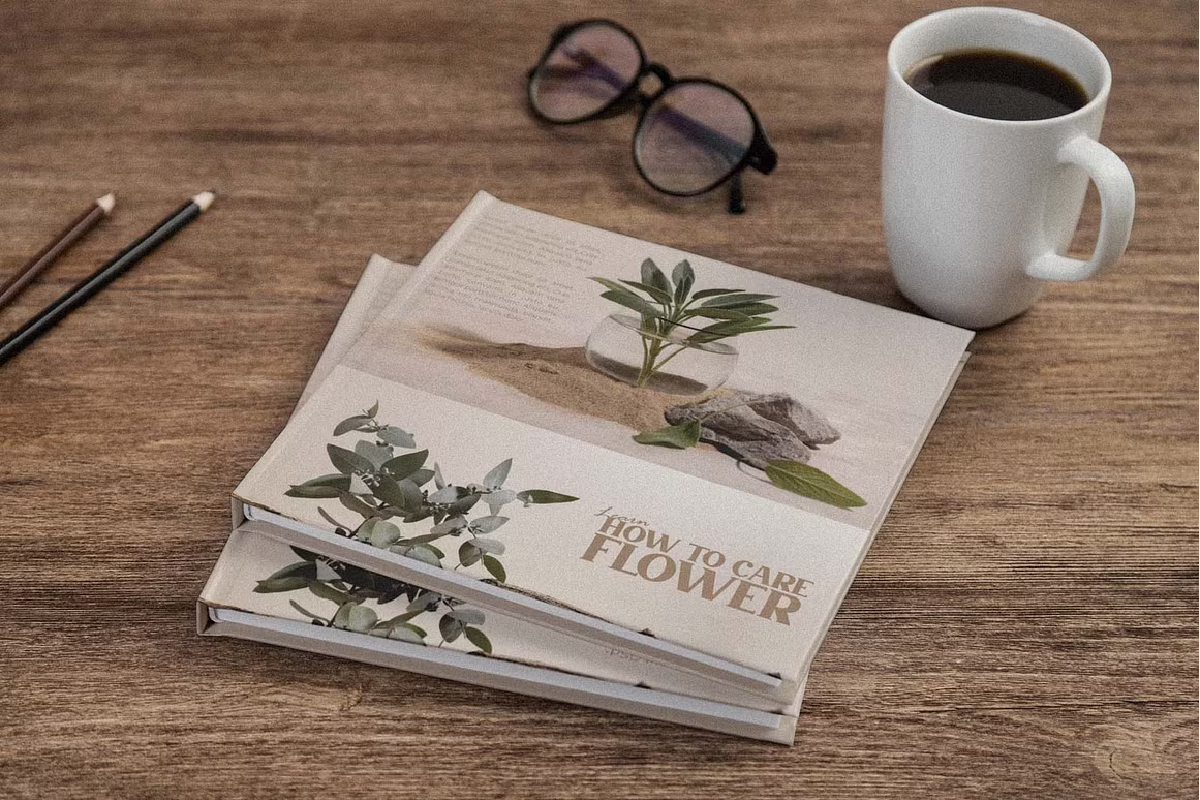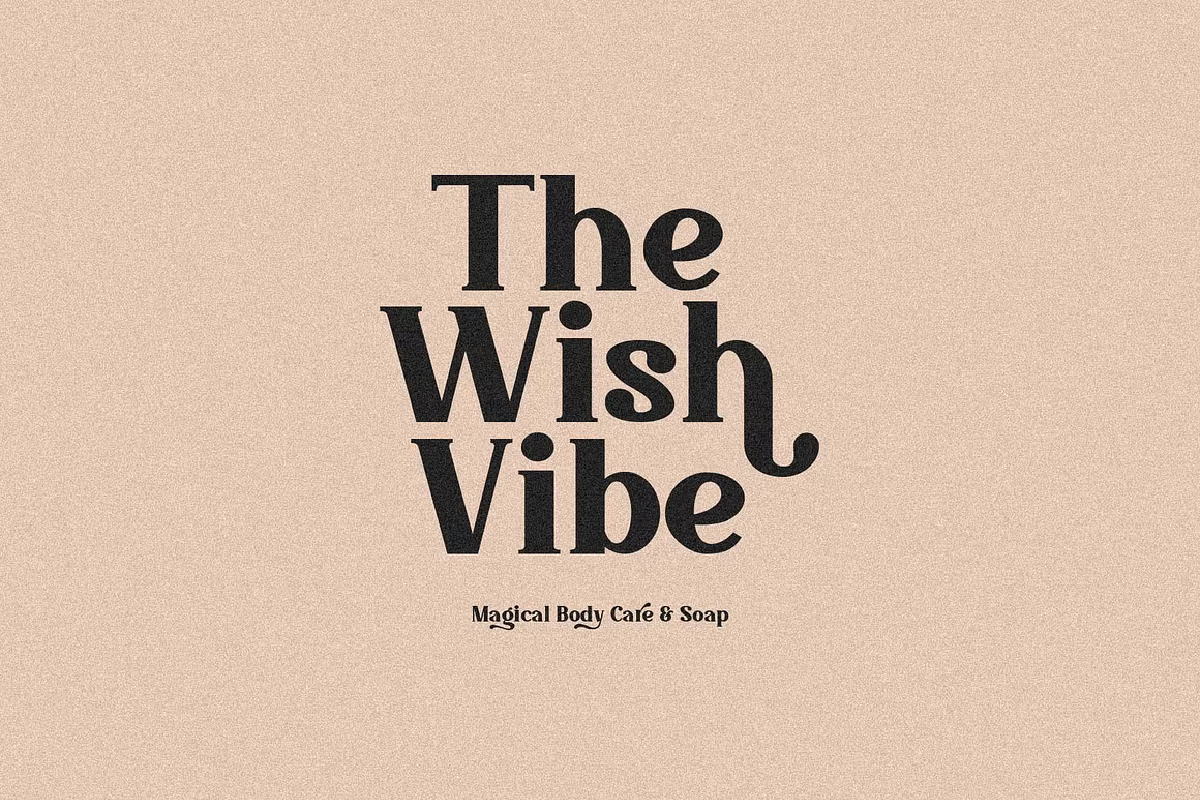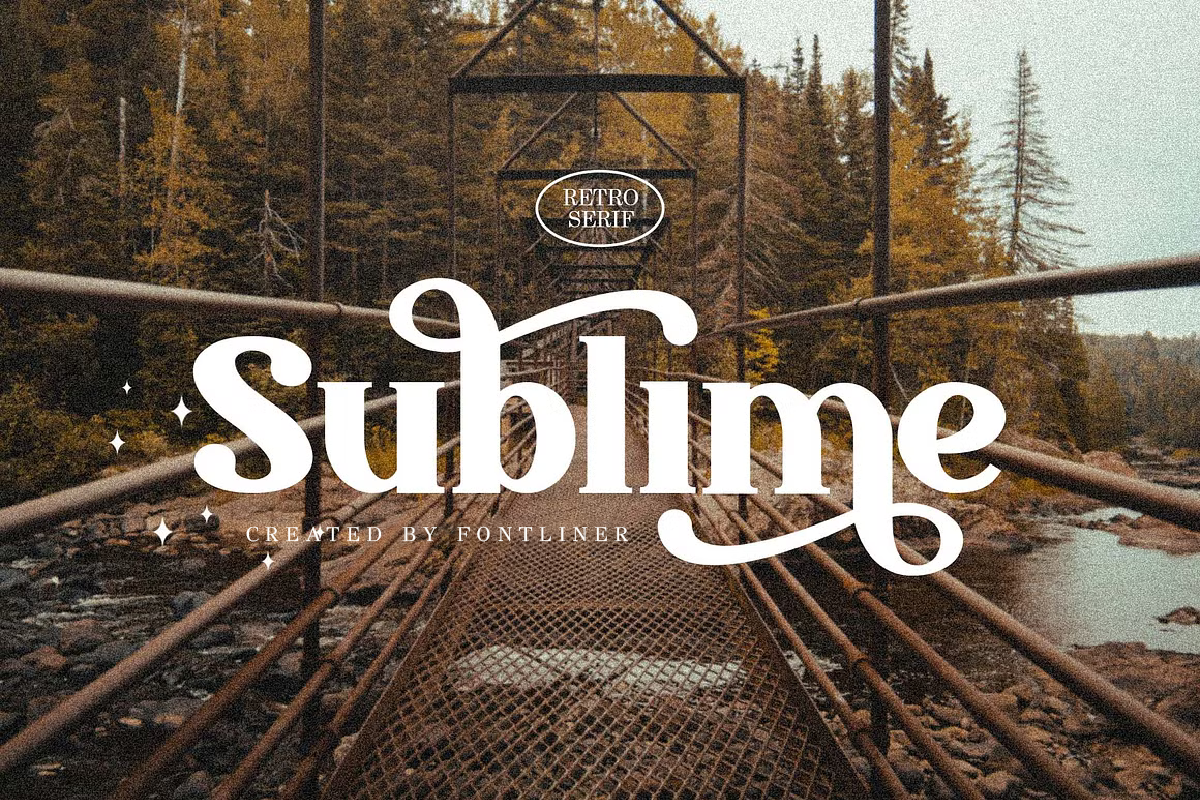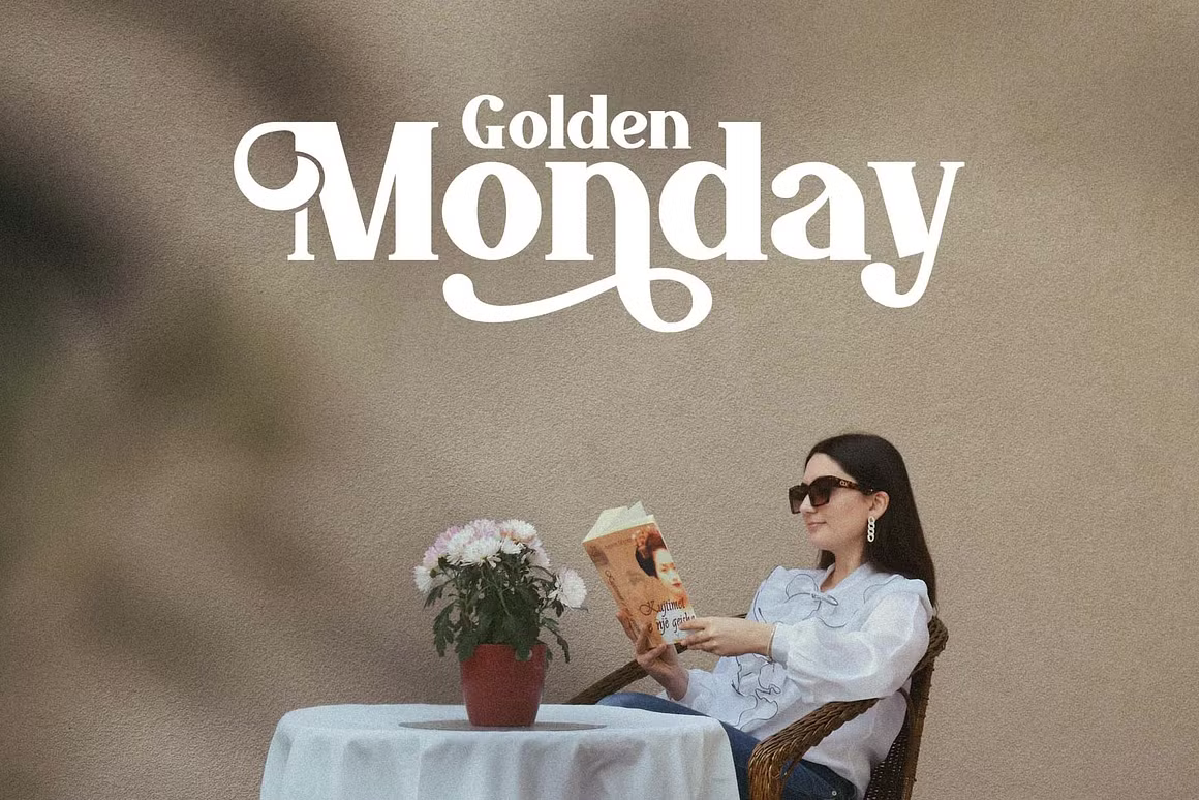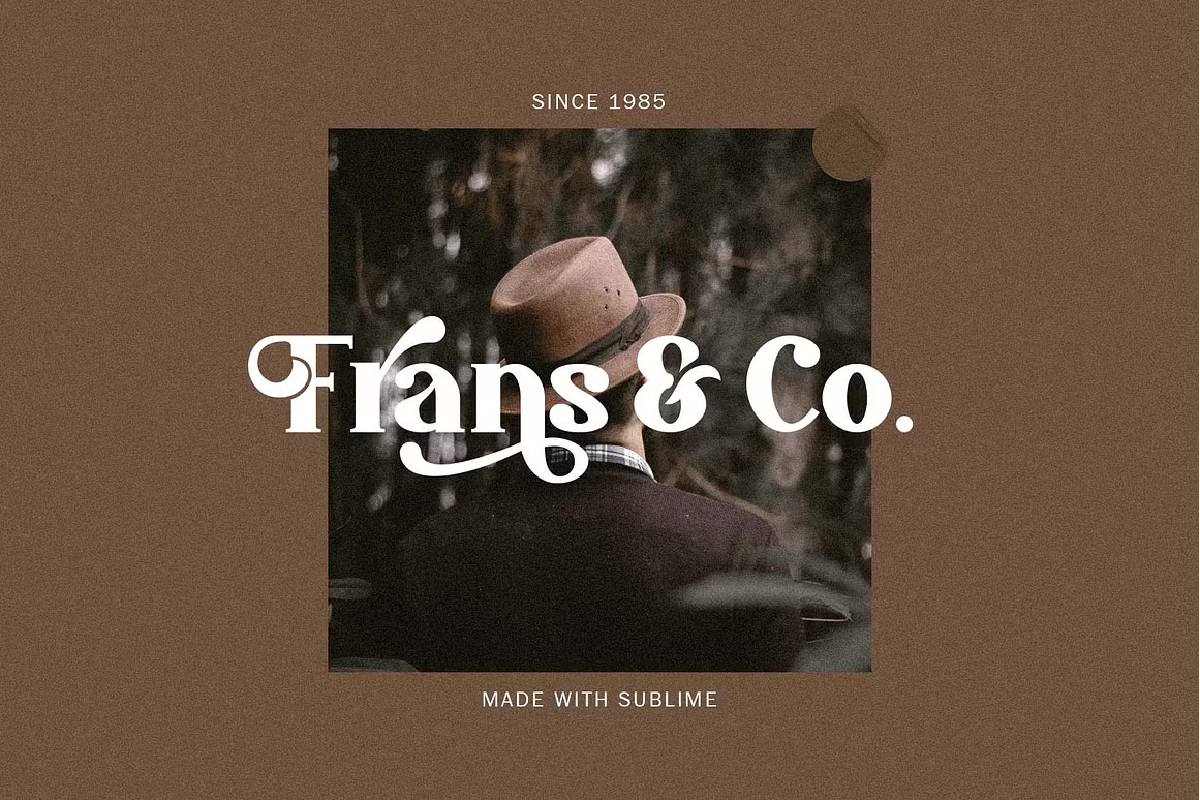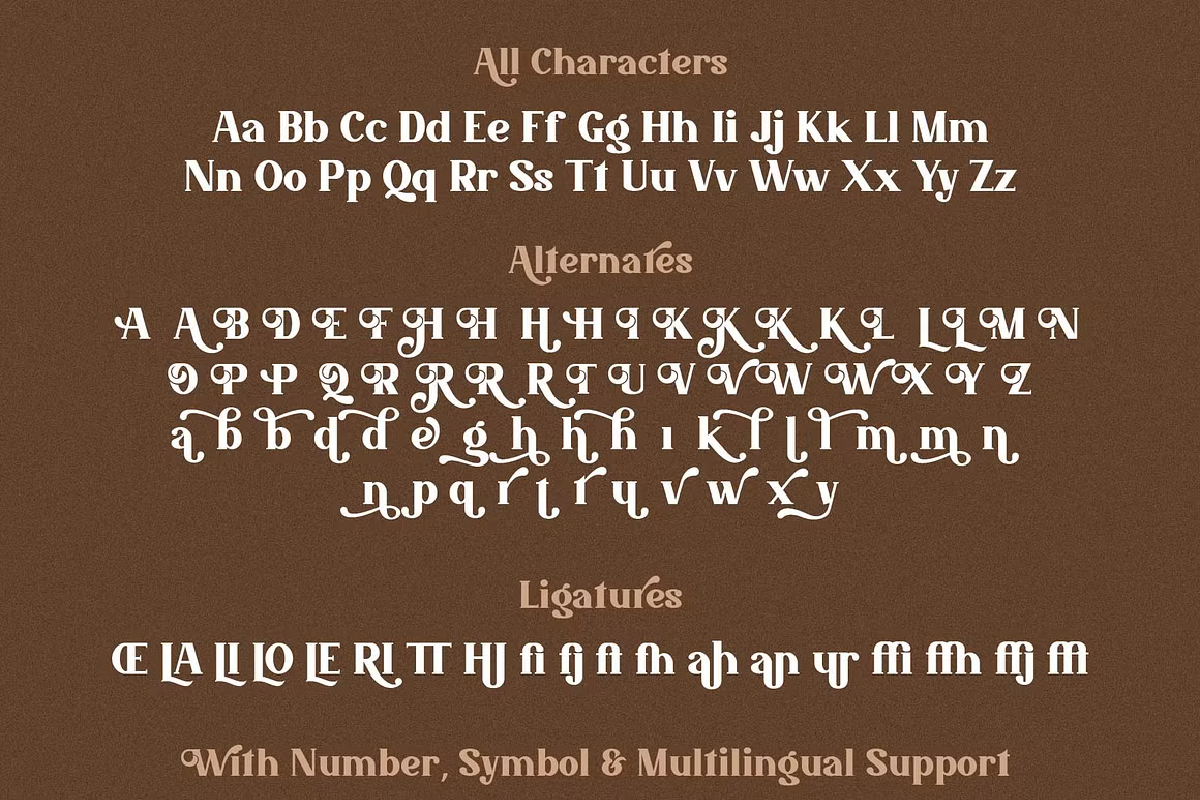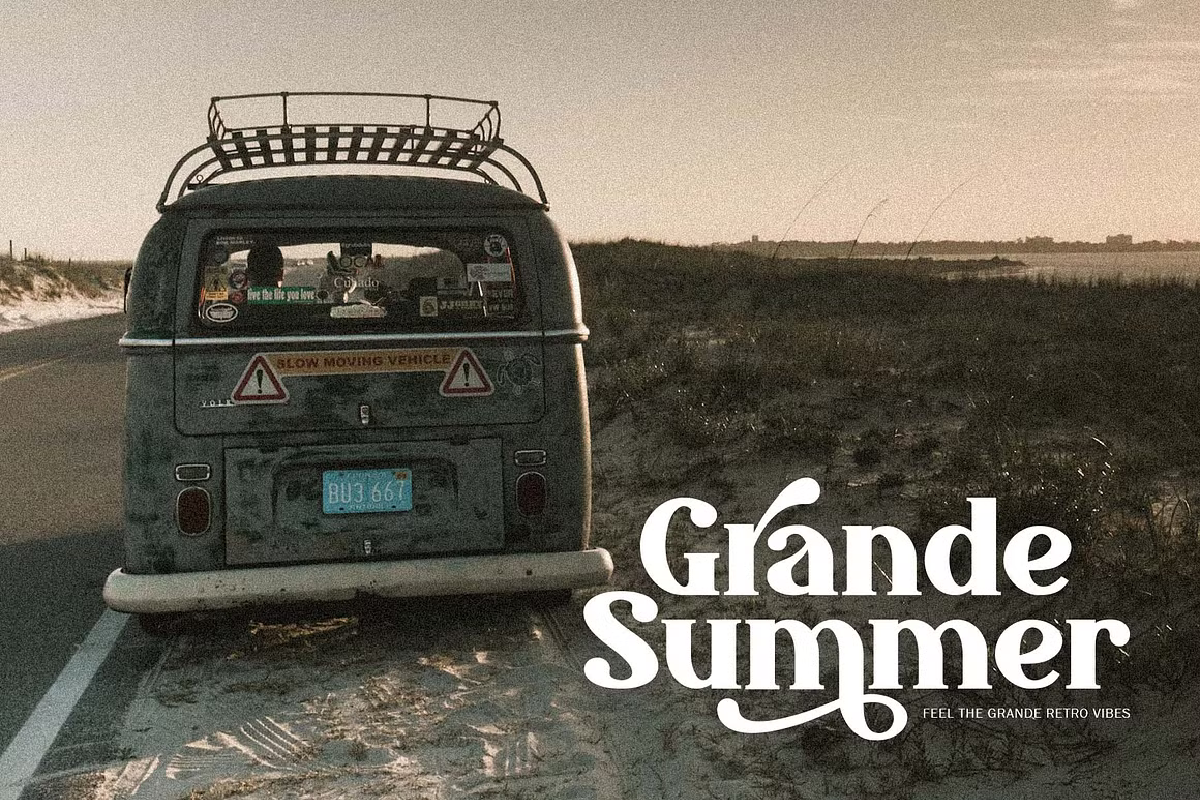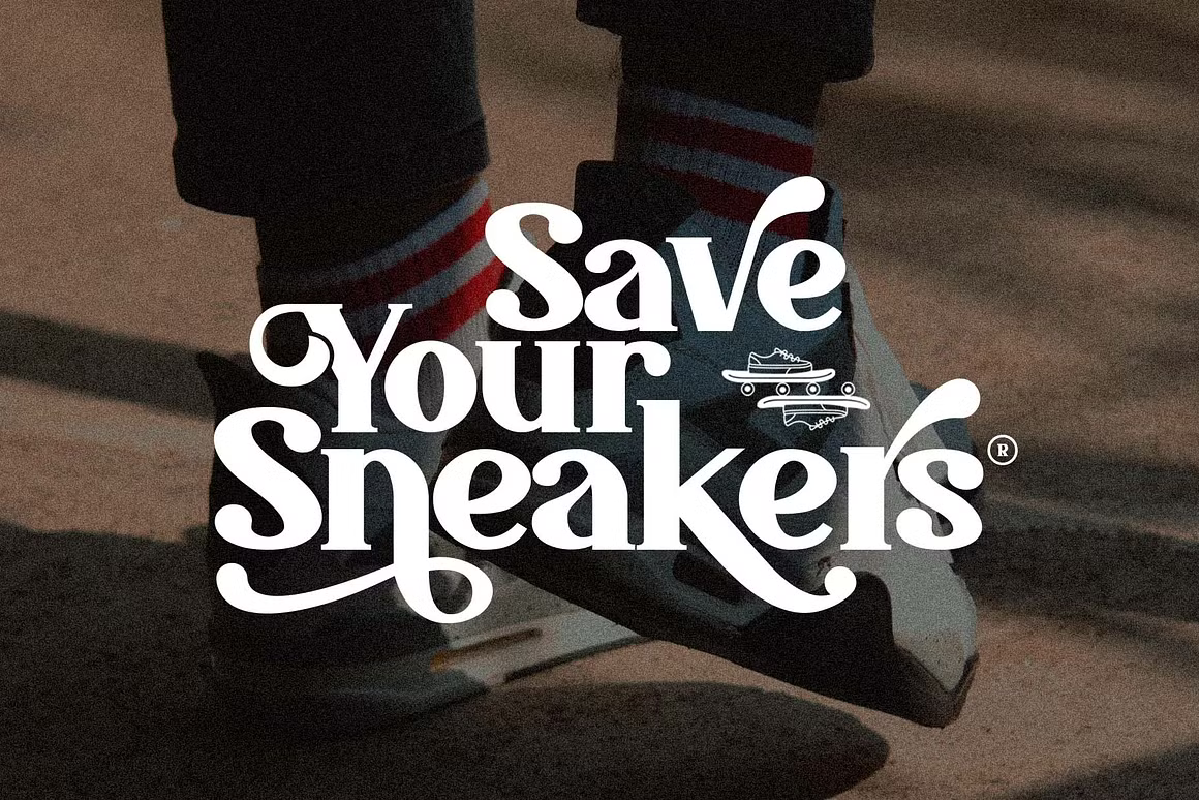
Sublime Font
Sublime is a Retro Serif Font. This fonts includes uppercase letters, numerals, a large range of punctuation. This font was created in a Retro style. Created for poster, web design, branding, illustrations, badges and some other works.